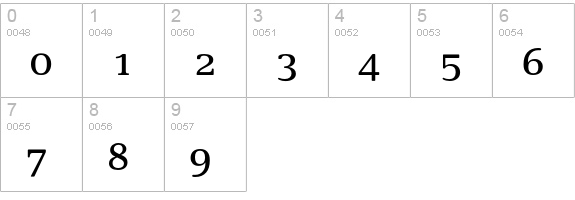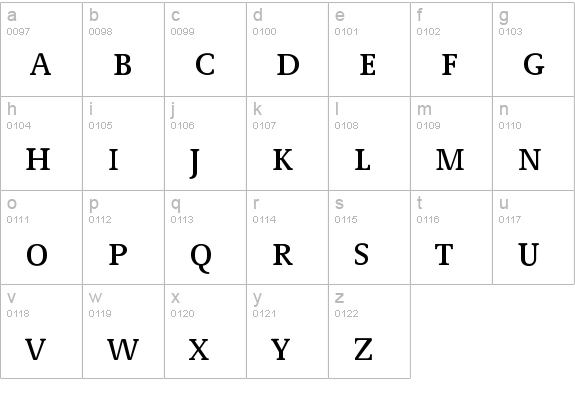
DemosEF-MediumSC Font Details
DemosEF-MediumSC is a classic and elegant serif font that exudes sophistication and style. Its medium weight strikes the perfect balance between boldness and readability, making it ideal for various design projects. This font offers a timeless appeal with its traditional letterforms and refined serifs, adding a touch of class to any text it graces. The best part about DemosEF-MediumSC is that it is completely free to download at FontsMarket.com. Whether you're working on a professional presentation, crafting a sleek logo, or designing a stylish poster, this font has got you covered. Its versatility and charm make it a go-to choice for designers looking to elevate their typography game without breaking the bank. Experience the beauty and versatility of DemosEF-MediumSC today by downloading it for free at FontsMarket.com. Elevate your designs with this exquisite font and make a lasting impression on your audience.